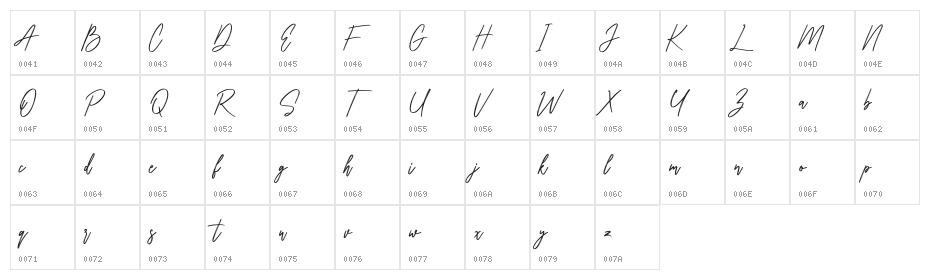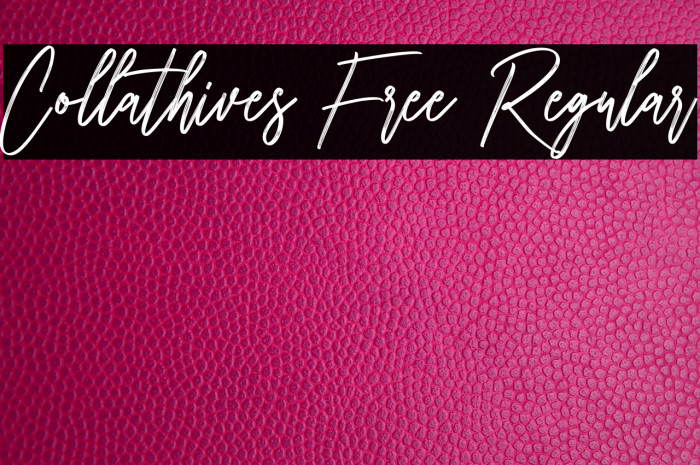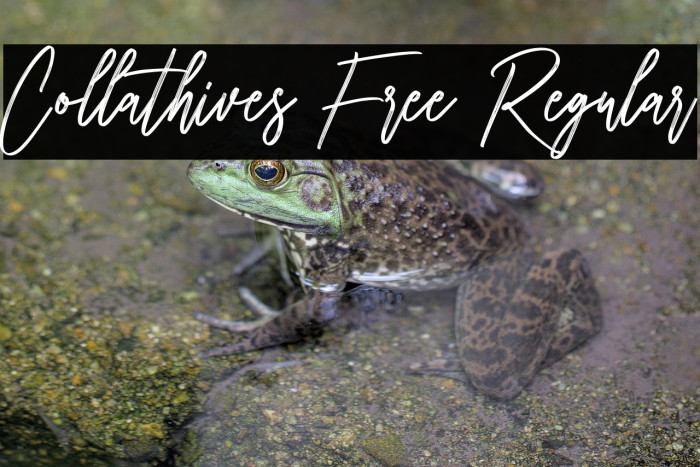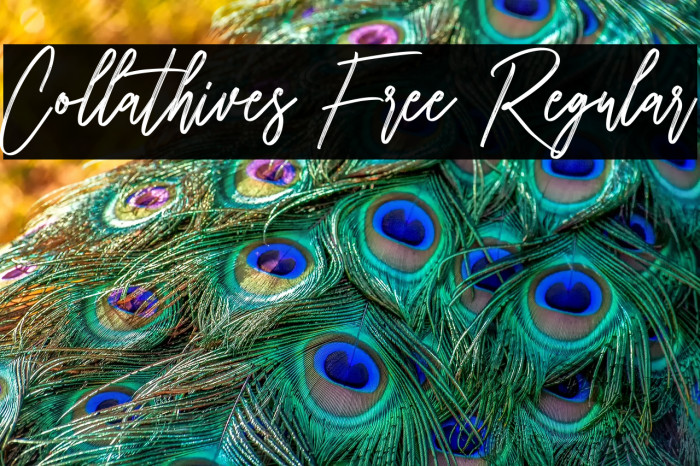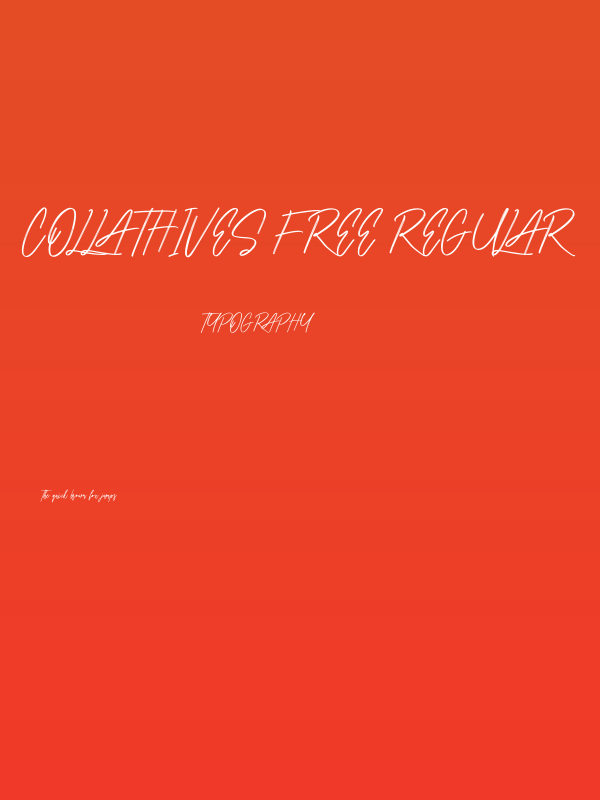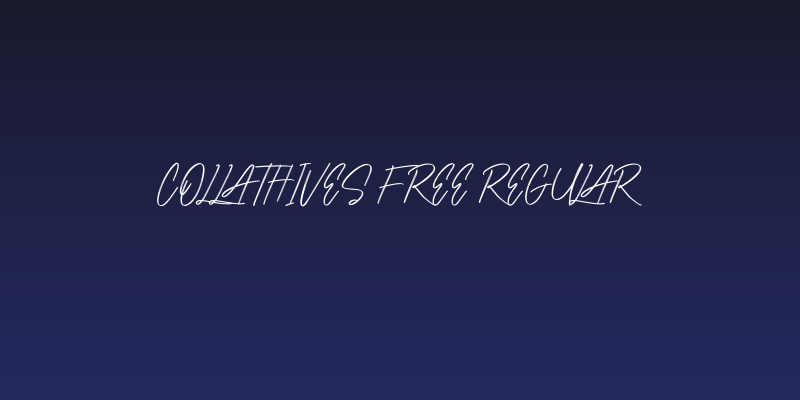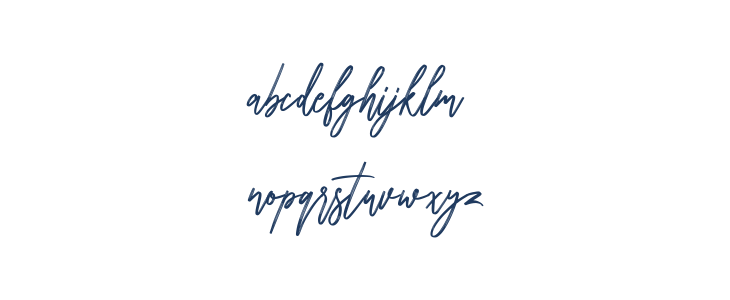
Collathives Free Regular Font
Collathives Free Regular Description
This font showcases a dynamic and fluid handwritten style, characterized by its elegant and flowing script. The letters are connected in a cursive manner, giving it a natural and personal touch. The strokes are smooth and slightly varied in thickness, adding a sense of movement and grace. The uppercase letters are bold and prominent, while the lowercase letters maintain a consistent flow. This font exudes a sense of sophistication and creativity, making it ideal for projects that require a personal and artistic flair.